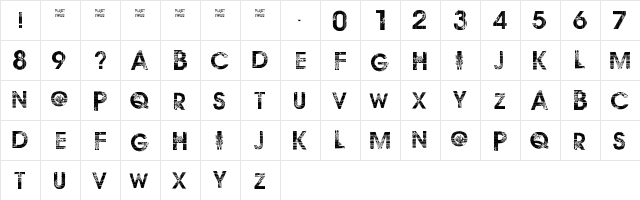
route 3 Regular
Design Context for route 3 Typeface
route 3 is a composed and adaptable typeface that performs quietly and consistently across a wide range of design contexts.
Pro Tip: Pair route 3 with a font of contrasting weight or personality to build a more expressive typographic hierarchy.